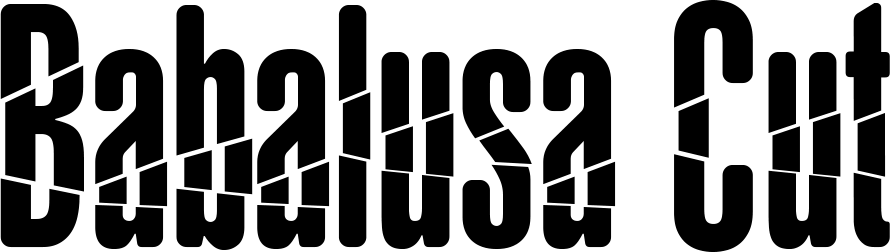
Babalusa Cut Font
Babalusa Cut font is a cracked and broken font style for designing glass commercials. Each of the characters is designed in fracture type. This tall font can be an excellent choice for many horror and action movies. For example, you can use other dangerous elements on your poster or social media posts.
This hacker font with its rounded characters can design many different broken themes, such as sunglass and mirror ads.
Esta tipografía es un experimento de rajado y mutilación sobre mi anterior tipografía grotesca Yacarena Ultra Sans. Este ejercicio de corte aporta a la fuente una temporalidad estilística (moda) de la que no se sabe hasta cuando perdurará en el diseño gráfico, mientras tanto aprovéchala en composiciones de diseño de carteles, publicidad o para titulares en diseño editorial.
This typeface is an experiment in cracked and grotesque mutilation of my previous Yacarena Ultra Sans typeface. This exercise gives cutting power temporality stylistic (mode) of which is not known until they endure in graphic design, meanwhile kicking butt in compositions poster design, advertising or editorial design headlines.